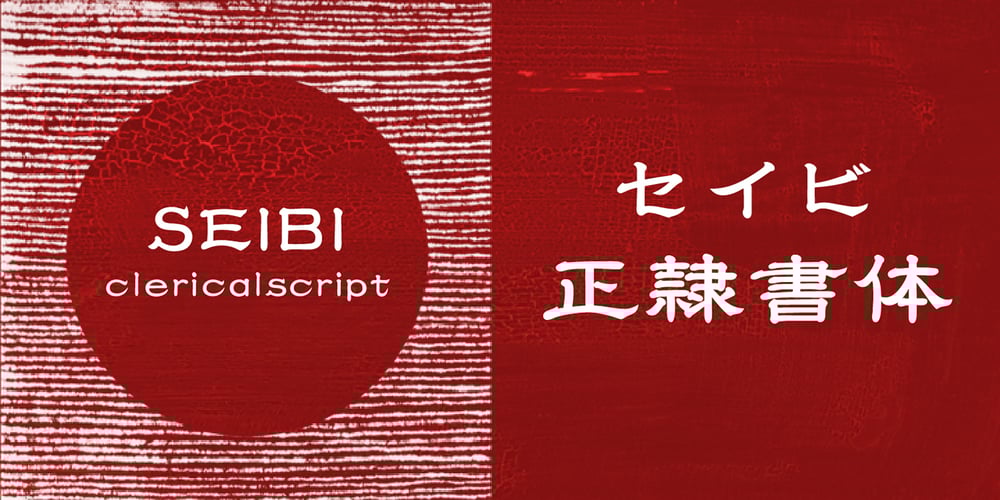
Seibi clerical script (Seireisho)
Seibi clerical script (Seireisho) font
Seibi clerical script (Seireisho) Font Family was designed by published by Nihon Literal. Seibi clerical script (Seireisho) contains 2 styles and family package options. An orthodox clerical script typeface featuring the flattened characters and sweeping brushstrokes typical of the clerical style. Characters are designed with minimal size variations for smooth alignment and readability both in vertical and horizontal typesetting. Also ideal for seal design artwork. 隷書体の特徴である扁平の字体と運筆の払いを生かした、オーソドックスな隷書体です。扁平の字体かつ装飾的な文字ですが、文字の大小が少なくデザインされているため、タテ組もヨコ組もガタつかず、読みやすく組めます。毛筆のかすれやにじみの印象はおさえつつも、隷書体の独特の波打つような運筆を生かしたエレメントが特徴です。